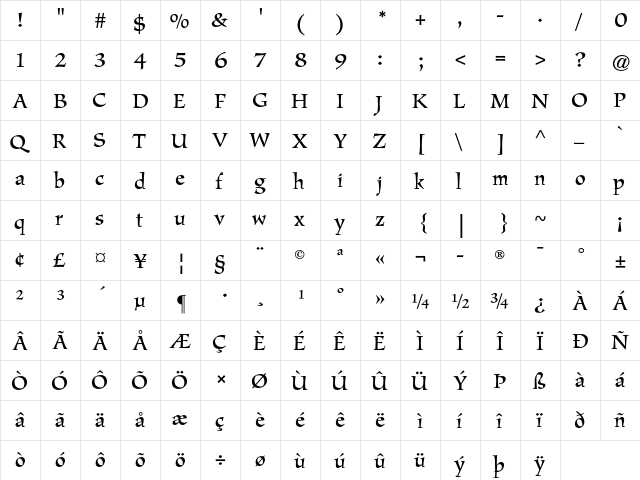
Amigo Std Regular
| Designer | Arthur Baker |
Design Context for Amigo Std Typeface
Amigo Std offers clean, dependable letterforms without strong stylistic allegiance, making it a practical choice for designers who need flexibility.